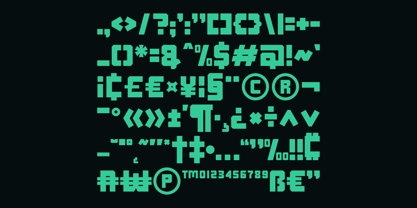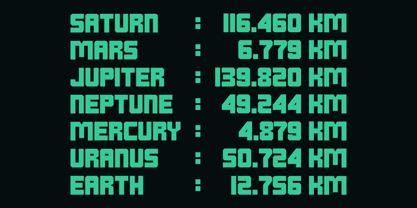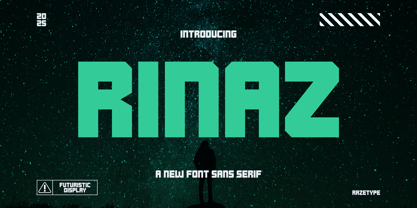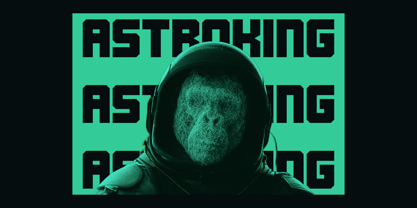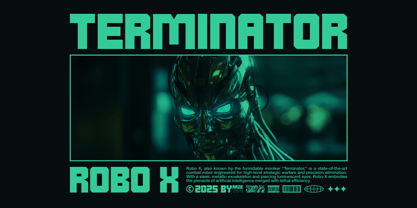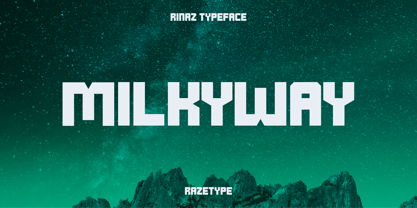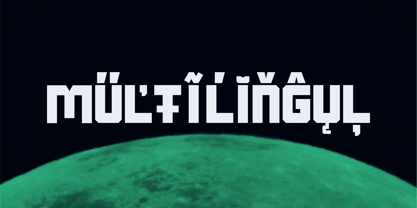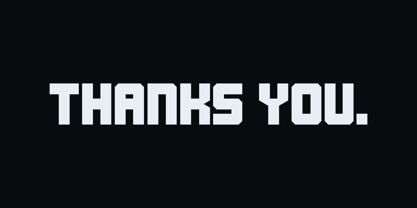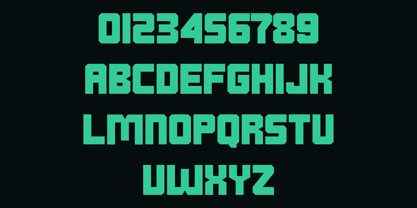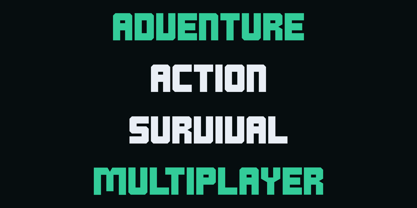
Rinaz
by Razetype
The Rinaz Font Family was designed by Ahmad Faizal and published by Razetype. Rinaz contains 1 styles. More about this family
Introducing Rinaz is a bold, futuristic sans serif typeface that embodies the aesthetic spirit of modern technology. Crafted with geometric precision and consistency, Rinaz features sharp angles, square terminals, and uniform stroke widths that give it a mechanical and industrial feel. Its design leans heavily into the technocentric style, making it perfect for sci-fi, cyberpunk, gaming, and high-tech branding applications. Eac​​​​​​​h character feels engineered—reminiscent of digital displays, robotics interfaces, and dystopian environments. Despite its blocky structure, the font maintains excellent readability, making it suitable for display titles and dynamic visual identities.
Designers: Ahmad Faizal
Current Foundry: Razetype